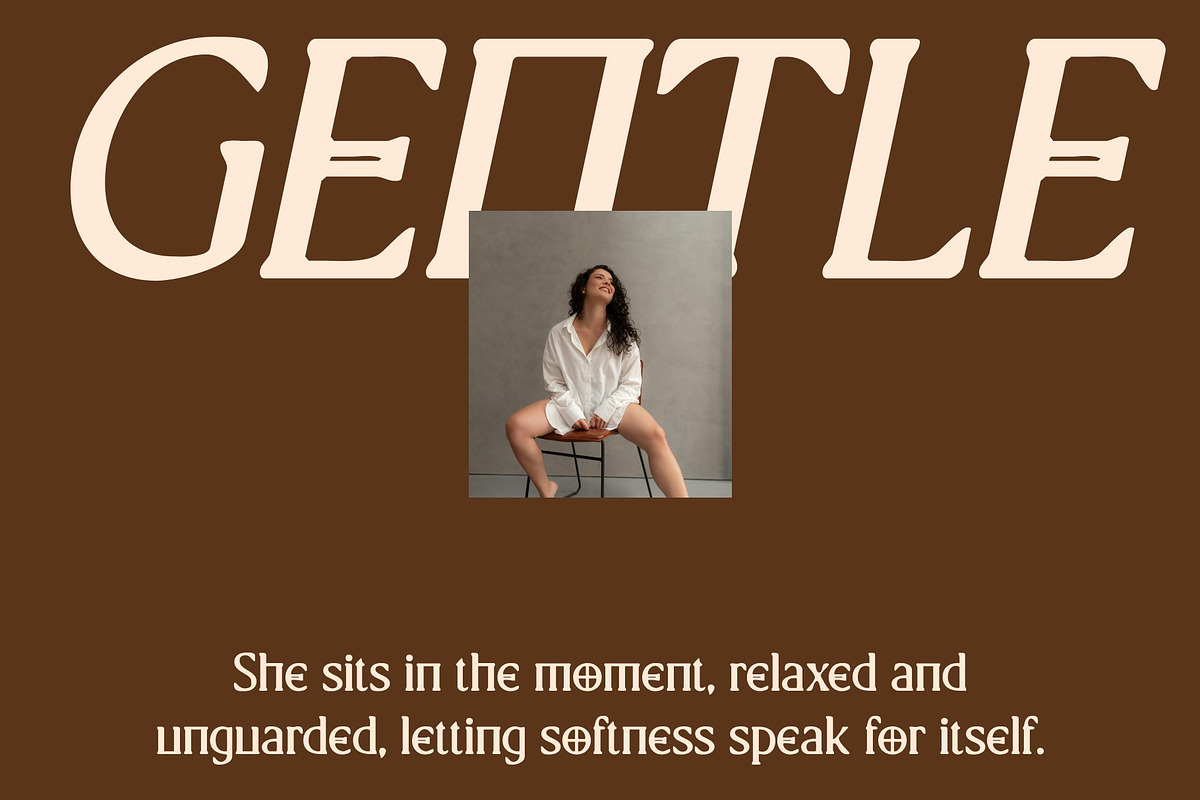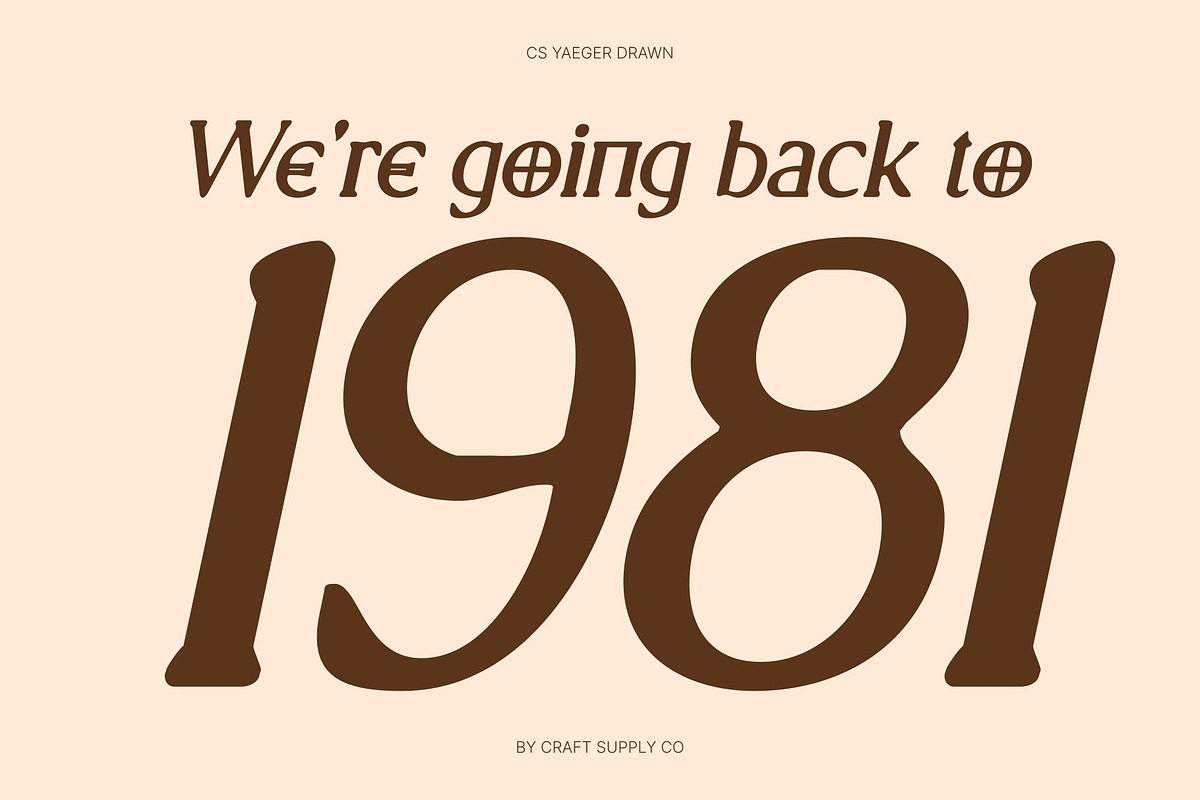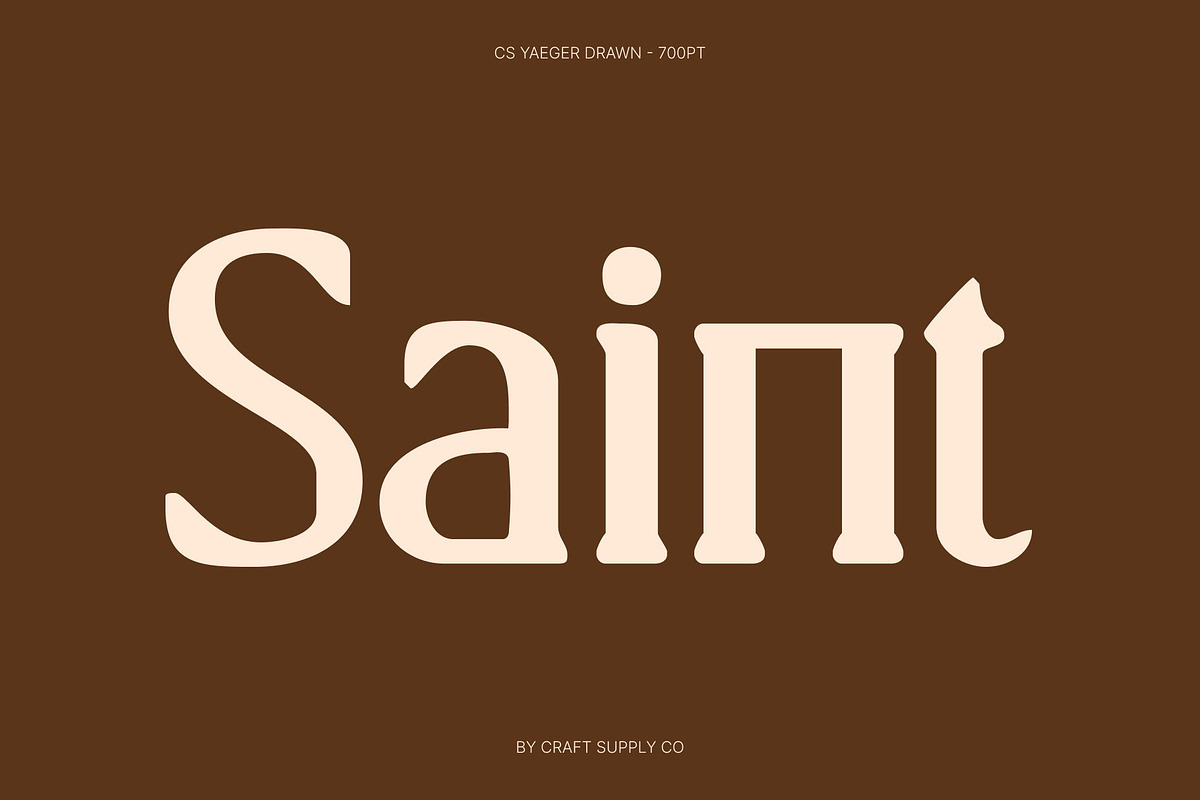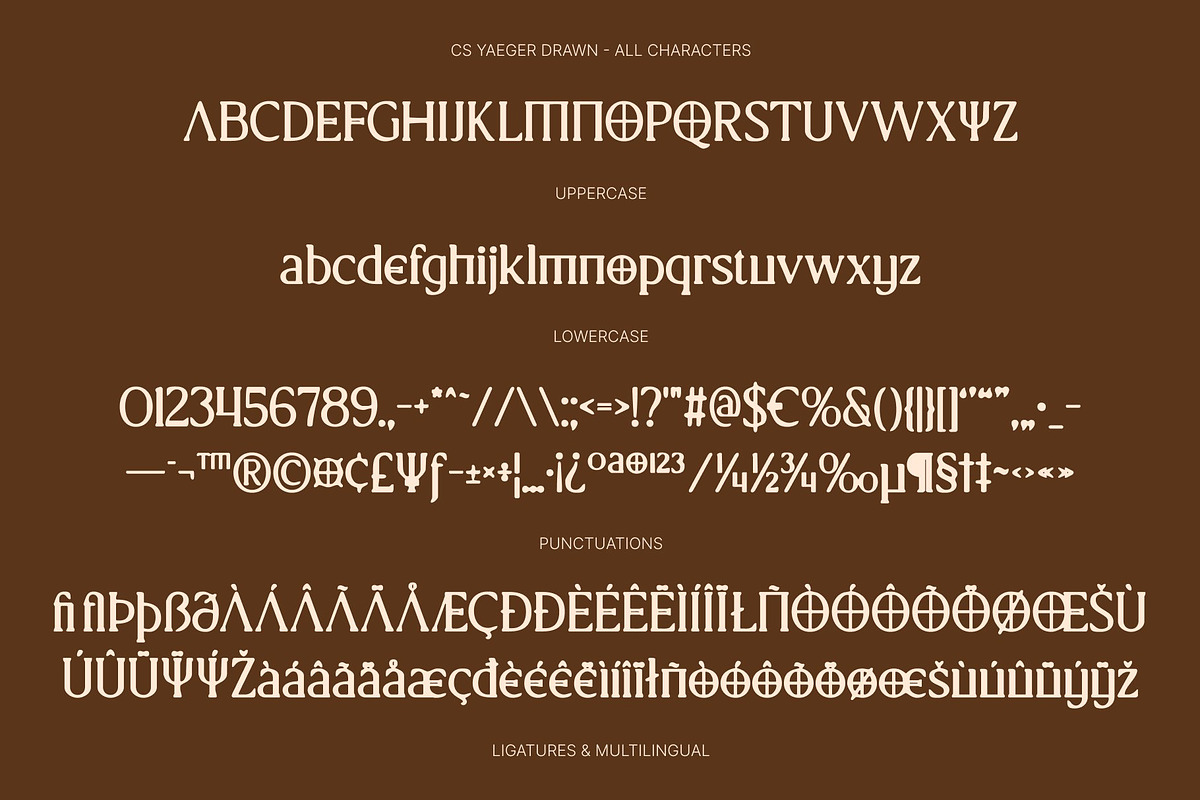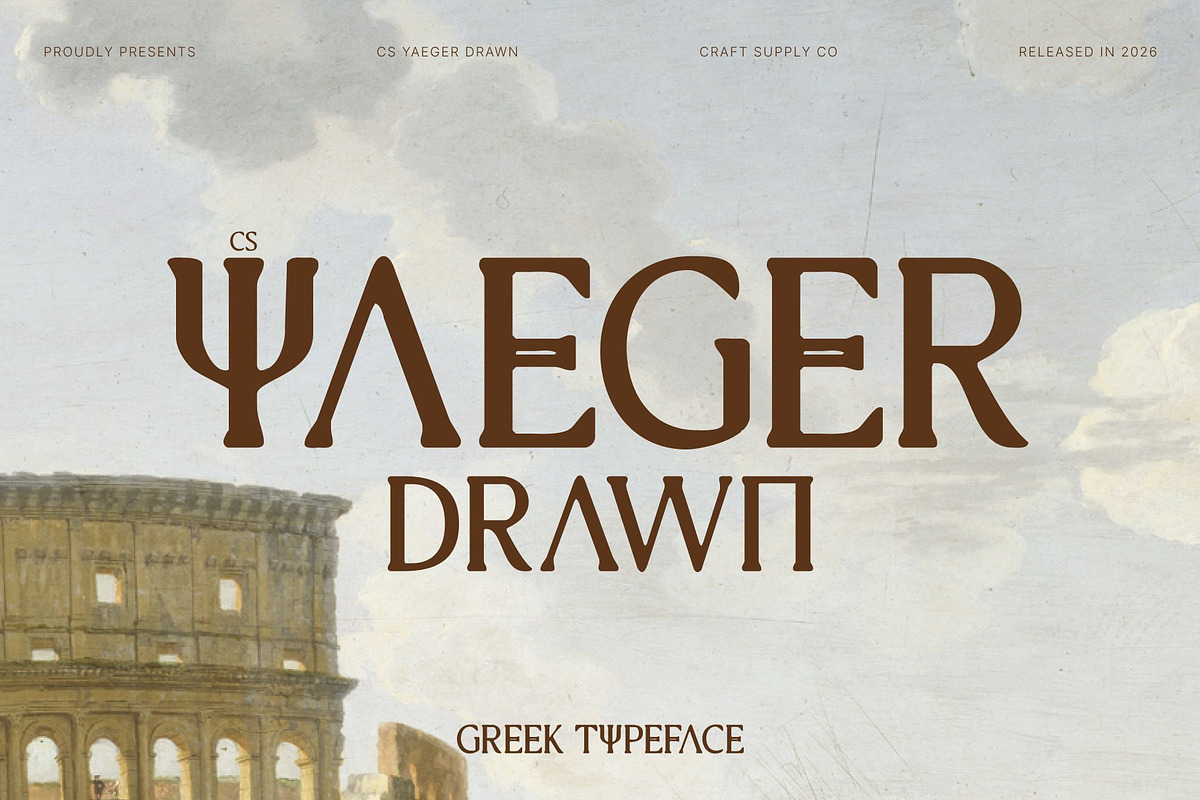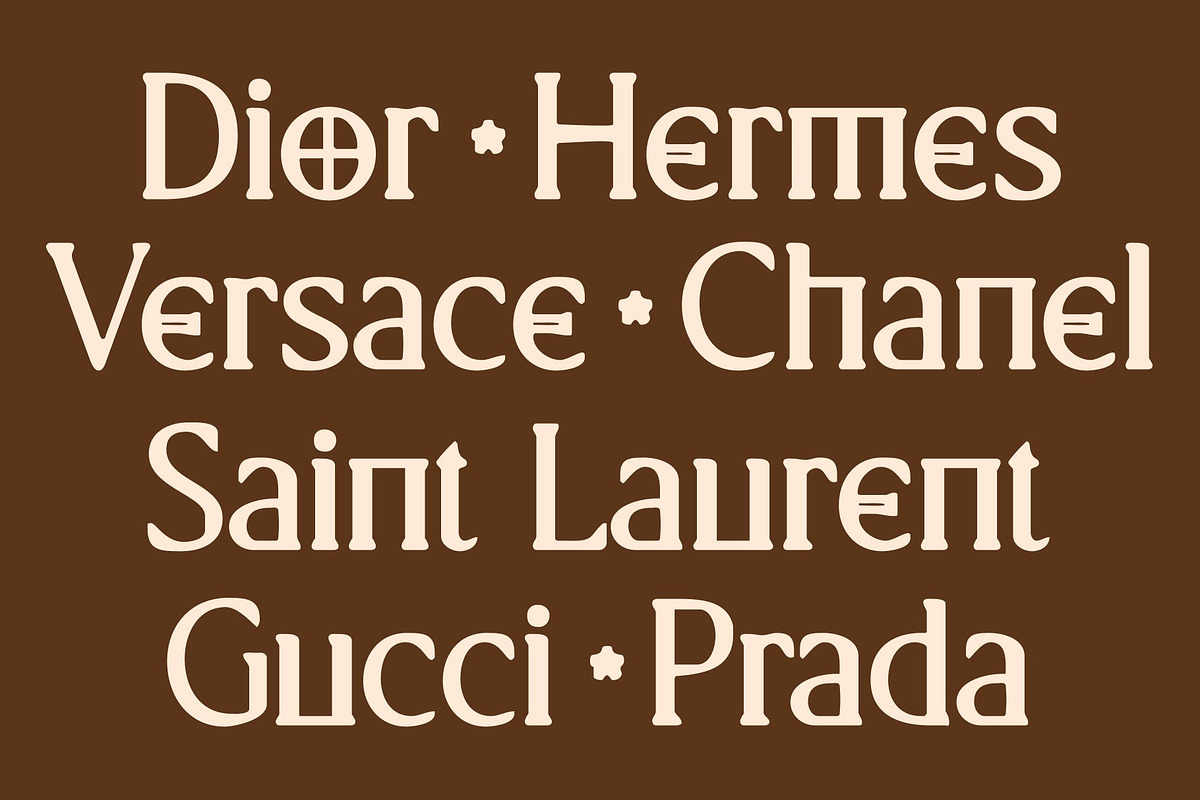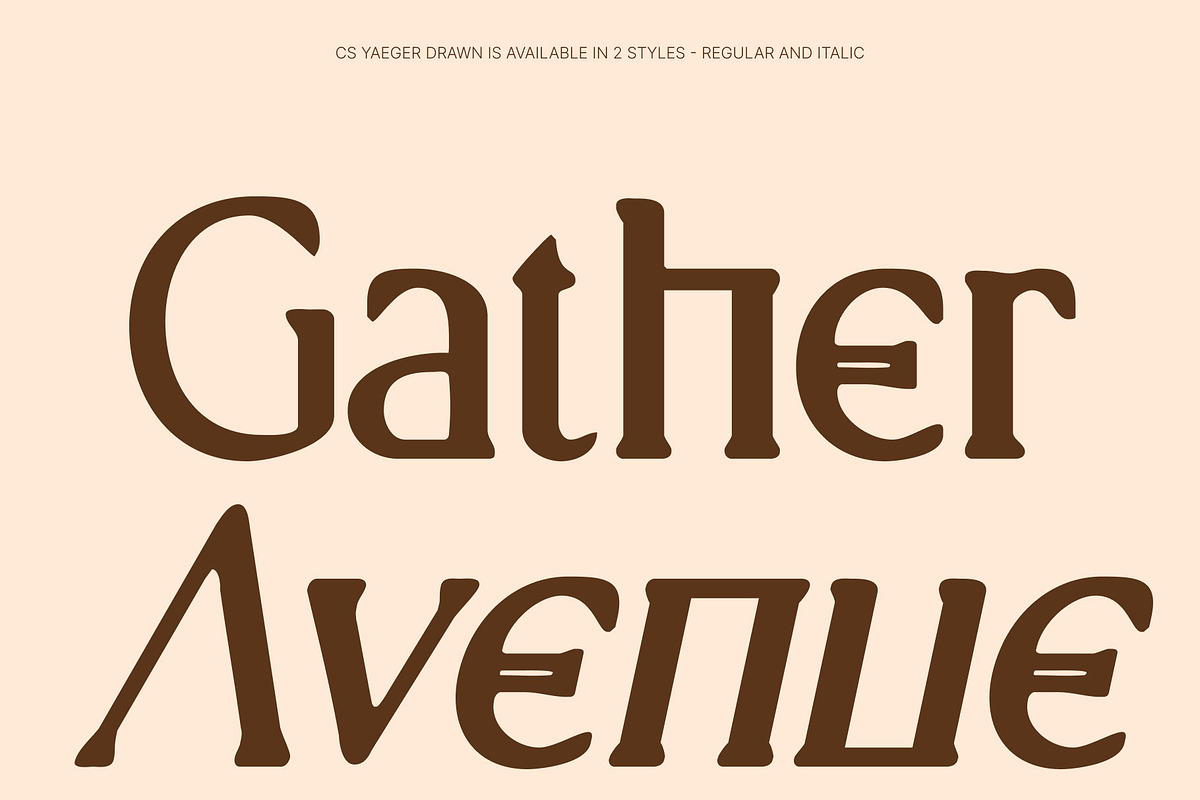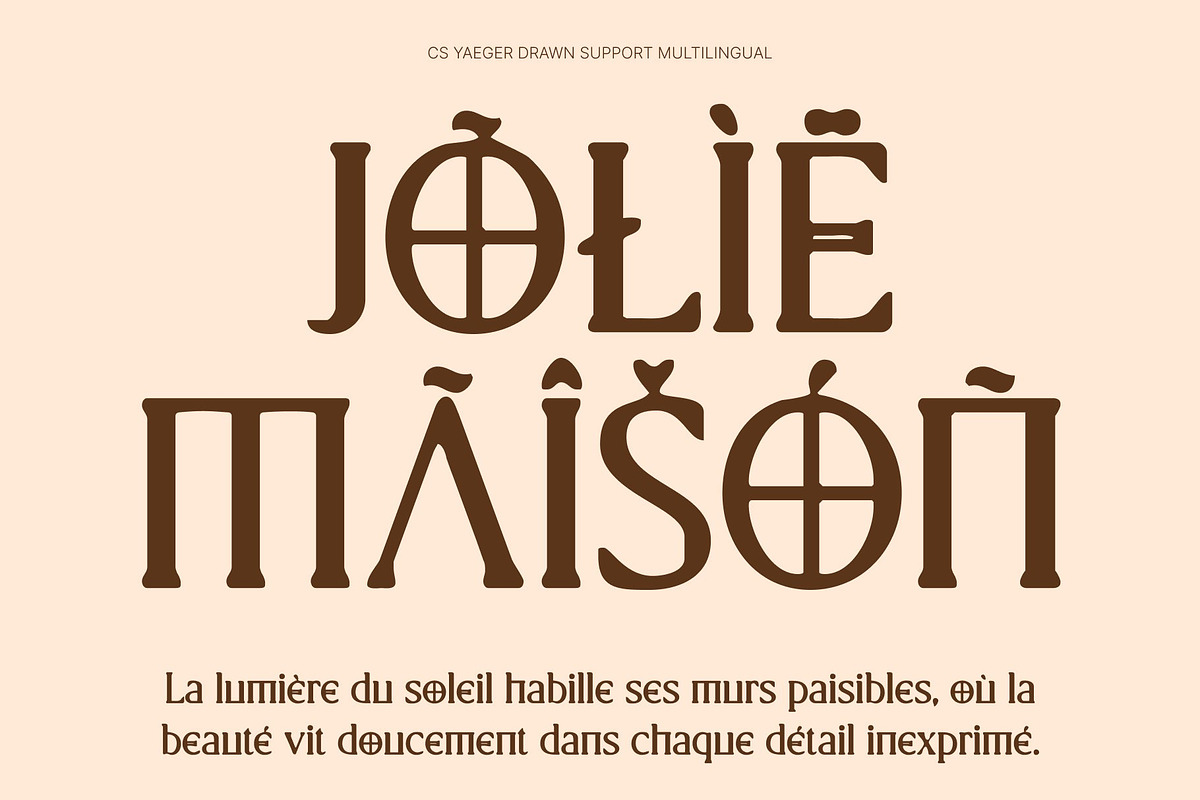
CS Yaeger Drawn
CS Yaeger Drawn – Classical Strength with Modern, Handcrafted Character
Inspired by Ancient Greek Elegance This is an elegant serif display font rooted in the timeless beauty of ancient Greek letterforms. It channels historical grandeur through strong serifs and sculptural shapes, while the hand-drawn effect adds a personal, organic touch. Each letter feels artistic, authentic, and uniquely alive, blending heritage with personality.
Classic Forms with Contemporary Clarity While preserving classical proportions and the authority of Greek-inspired forms, the drawn effect softens the edges and introduces subtle imperfections, giving each character a handcrafted charm. This balance of structure and artistry makes the font distinctive bold yet approachable, traditional yet refreshingly modern.
Perfect for Elegant, Personal, and Cultural Design This font excels in projects where sophistication meets personal expression. Ideal for luxury branding, editorial titles, museum exhibitions, invitations, logos, or handmade product packaging, it elevates every composition with a sense of heritage and genuine craftsmanship.
A Bridge Between History and Artistry More than a font, this is a dialogue between classical tradition and organic, contemporary expression. Its sculptural forms and hand-drawn nuances convey intelligence, elegance, and authenticity, making it perfect for designers who want their work to feel both timeless and uniquely personal.
CS Yaeger Drawn Regular
CS Yaeger Drawn Italic